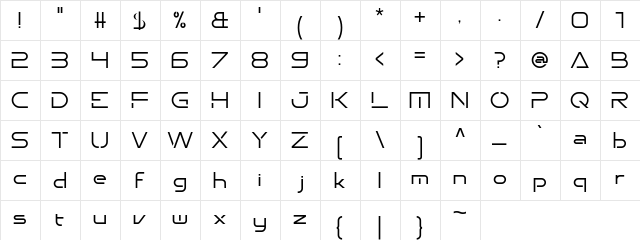
Emporium Regular
Design Context for Emporium Typeface
Emporium is a composed and adaptable typeface that performs quietly and consistently across a wide range of design contexts.
Pro Tip: Use Emporium in both headline and body roles to test its range before committing to a single application.